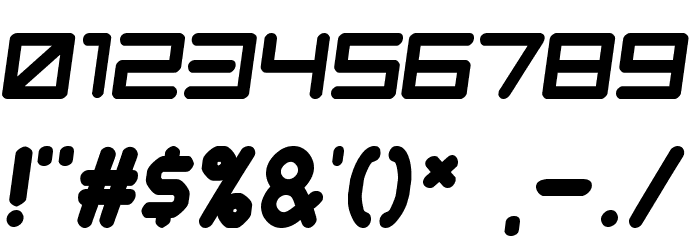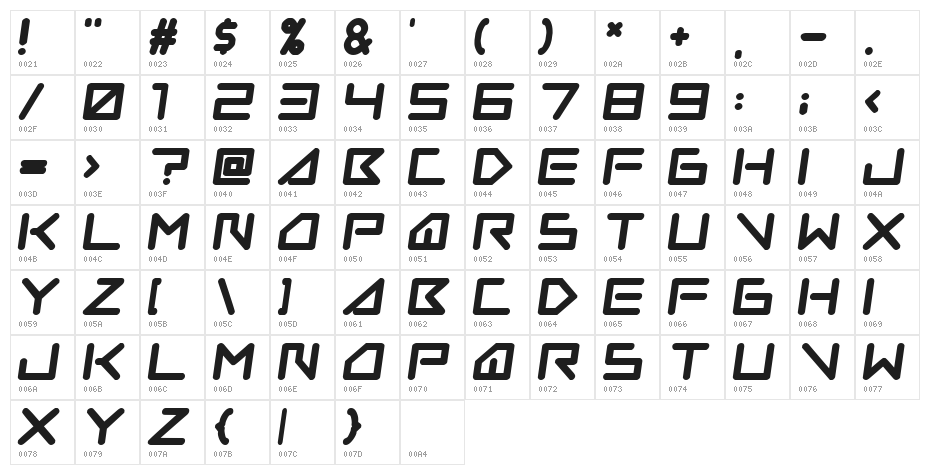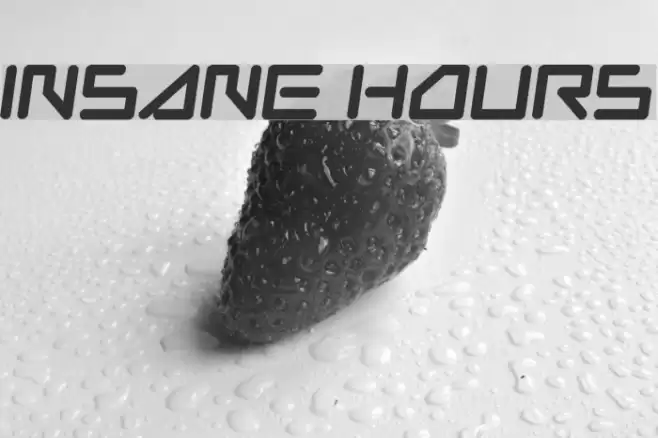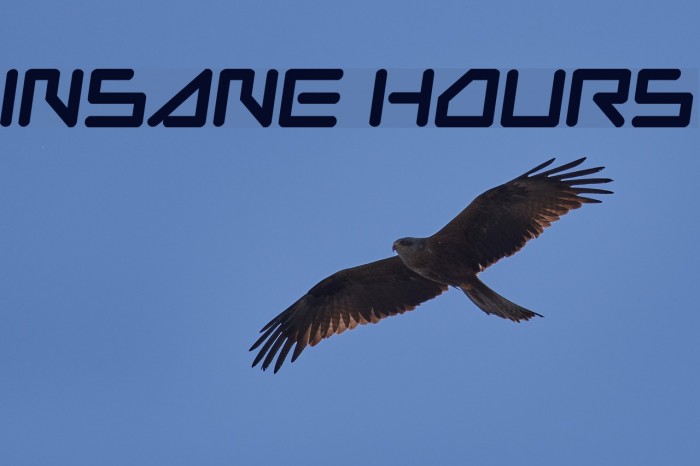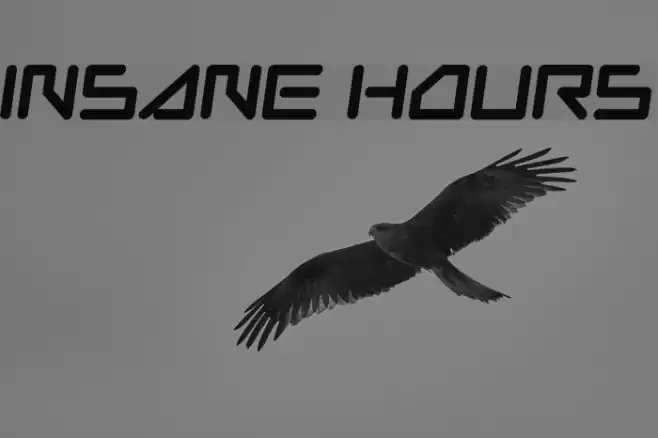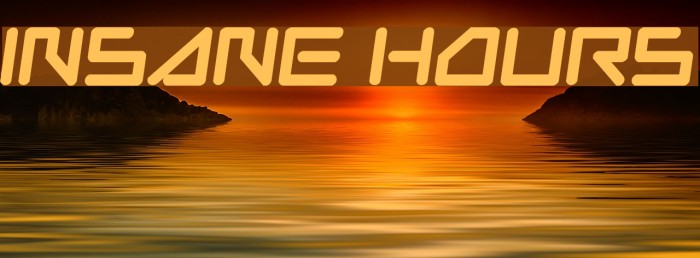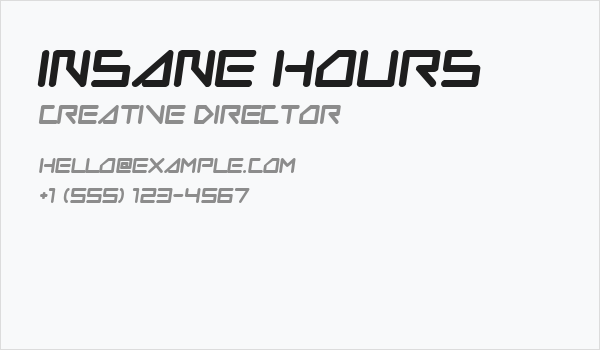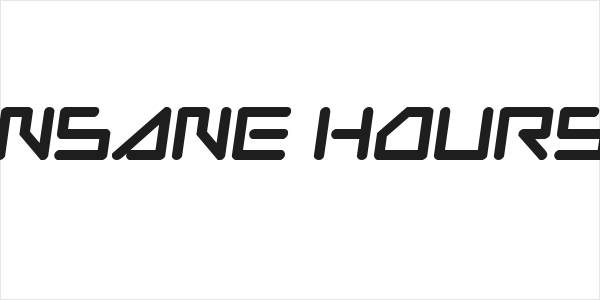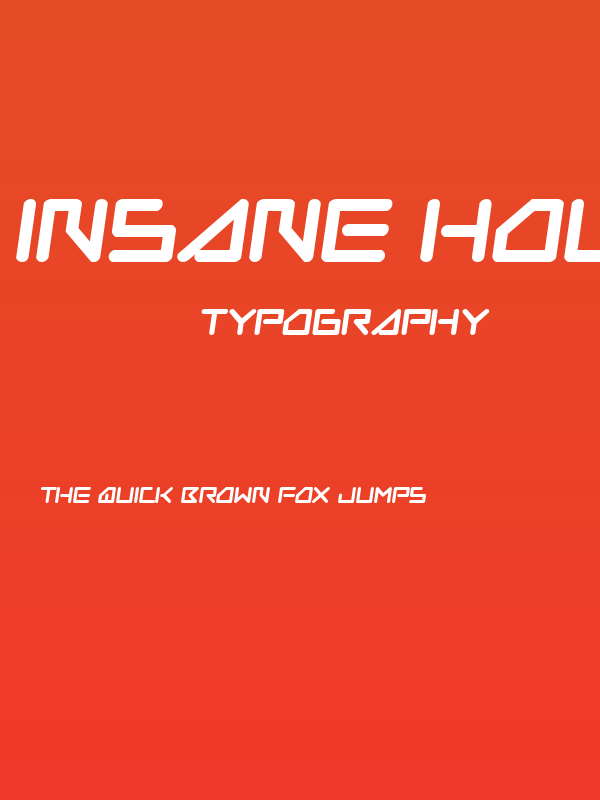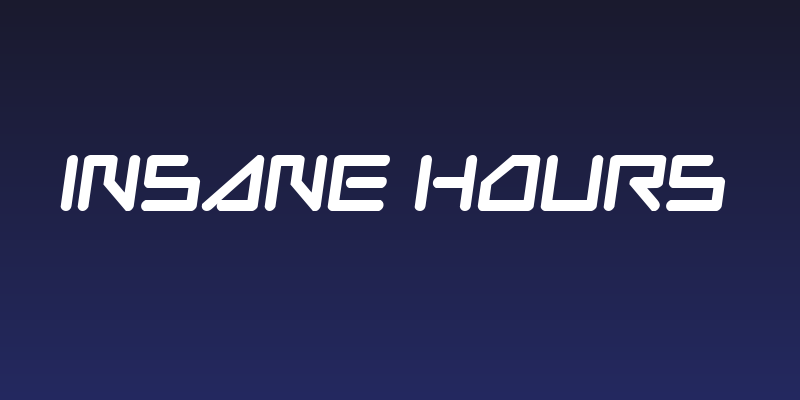
Insane Hours Font
Insane Hours Description
This font features a futuristic and angular design, characterized by its bold and geometric letterforms. The uppercase and lowercase letters share a consistent style, with sharp edges and a slightly condensed appearance. The numbers and special characters maintain the same aesthetic, providing a cohesive look across all glyphs. The font's unique style is reminiscent of digital or sci-fi themes, making it ideal for projects that require a modern and edgy feel. Its boldness ensures high readability, while the distinct shapes add a touch of creativity and innovation.
Proposed ProjectsIdeal for sci-fi themed designs, tech branding, video game interfaces, and modern posters.